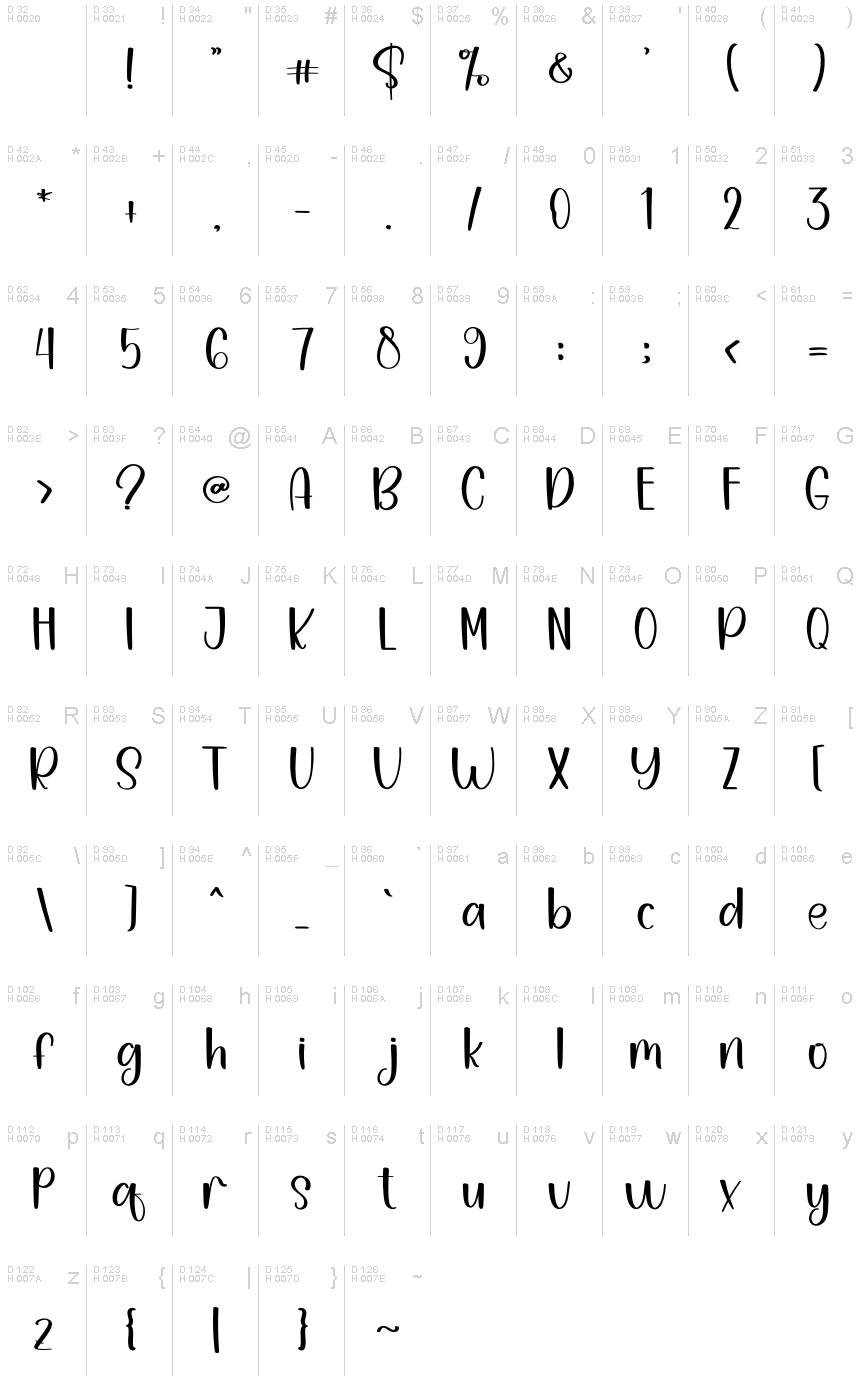
NIGHT PARTY
Night Party, conceived by Inermedia Studio, is a handwritten font that captures the spontaneous energy of a carefree evening. Its semi-light weight melds with a condensed width to exude an aesthetic that is as playful as it is sophisticated. The characters dance with an undeniable rhythm, providing a visual representation of laughter and music woven into the very fabric of its design.
This font's casual elegance makes it perfectly suited for invitations, branding, or any project demanding a touch of festivity. Whether you're creating promotional materials for events or looking to infuse your personal blog with personality, Night Party’s charming allure invites creativity at every turn.